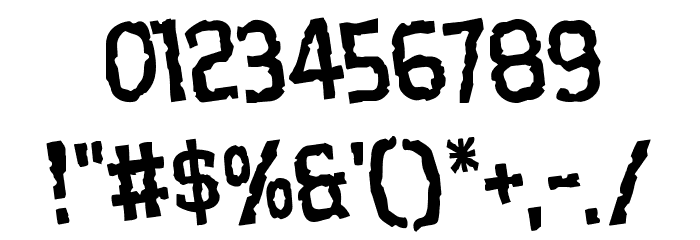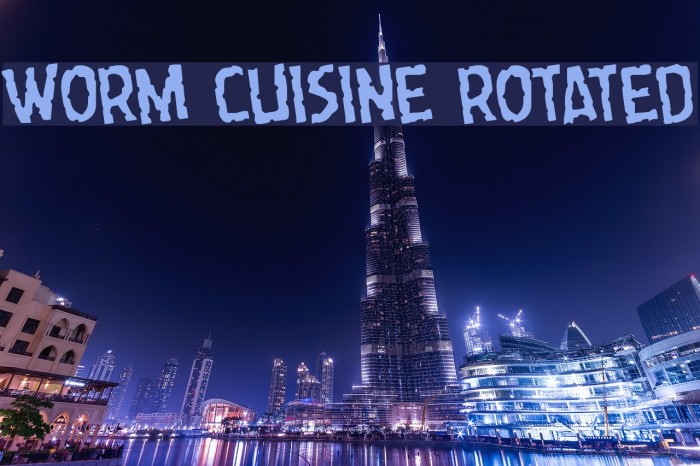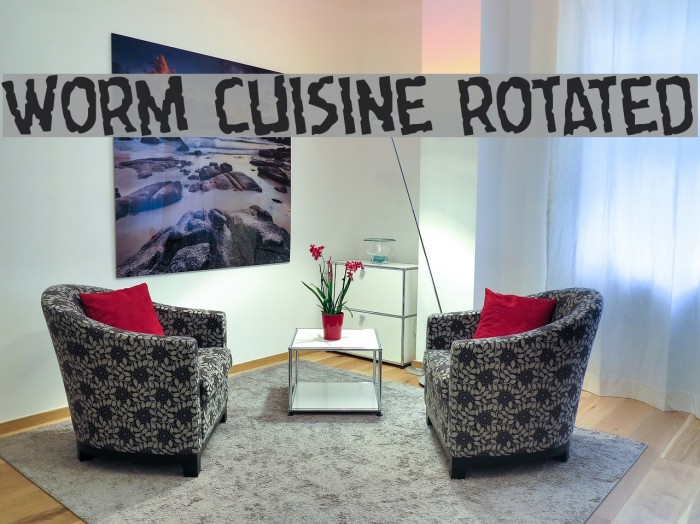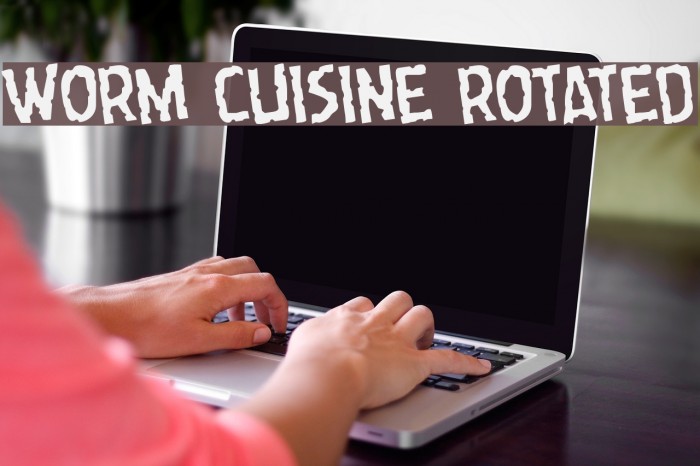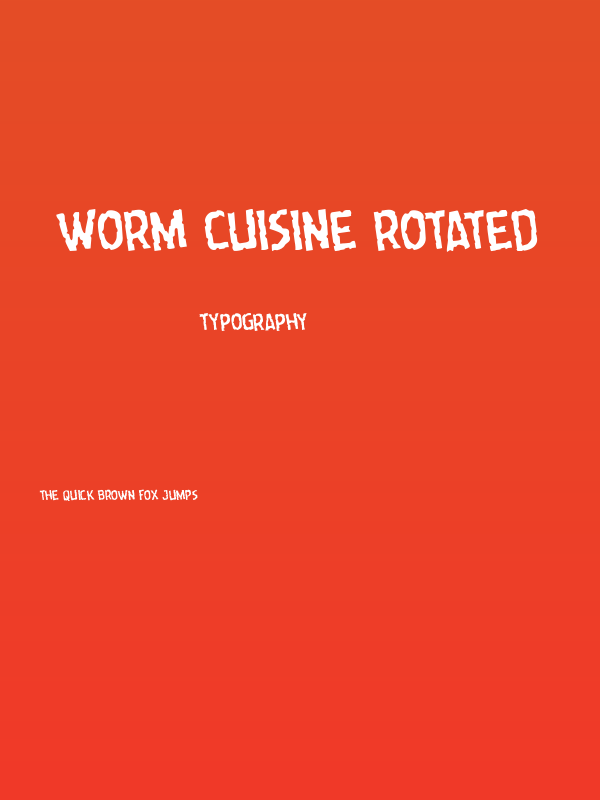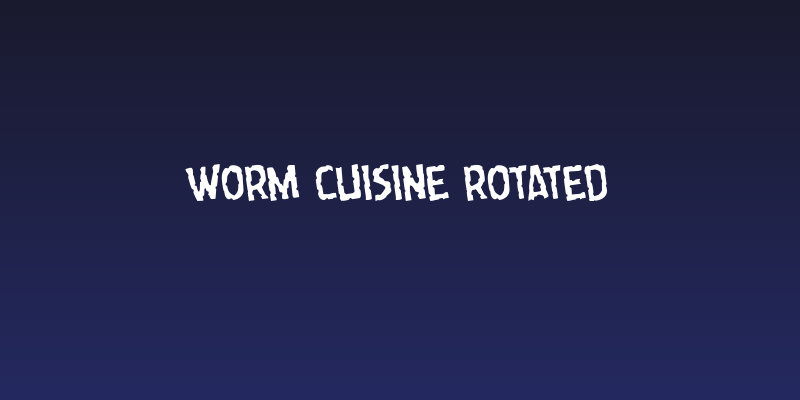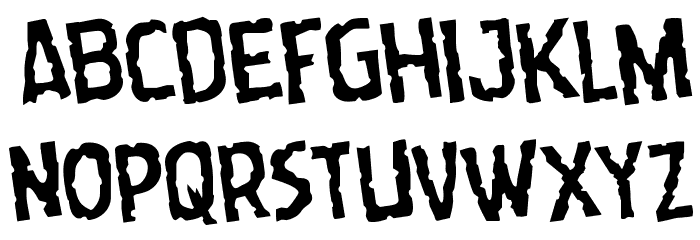
Worm Cuisine Rotated Font
Worm Cuisine Rotated Description
This font features a rugged, distressed appearance, reminiscent of worn or decayed textures. The characters have an irregular, jagged edge that gives them a unique, organic feel. The uppercase and lowercase letters maintain a consistent style, with bold strokes and uneven lines that suggest a hand-drawn quality. Numbers and special characters follow the same aesthetic, ensuring a cohesive look across all glyphs. The font's distinctive style makes it stand out, ideal for projects that require a bold, unconventional typeface.
| Proposed Projects | Ideal for horror-themed designs, edgy posters, album covers, or any project needing a bold, unconventional typeface. |